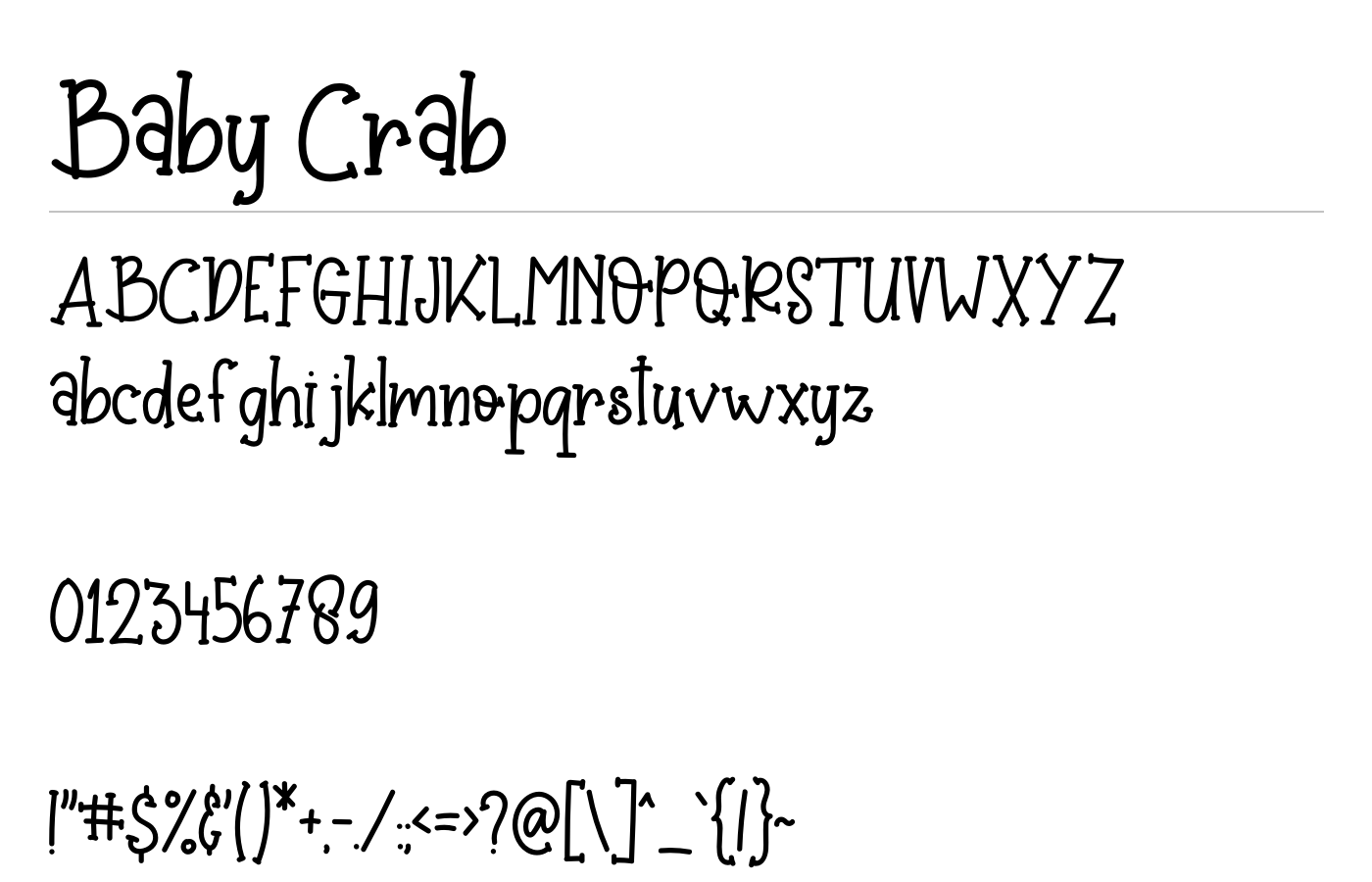
Baby Crab is a whimsical, playful handwritten font with a casual and friendly vibe. Its irregular, thin strokes and quirky letterforms give it a charming, childlike character ideal for informal branding, children's books, and creative projects that want to evoke fun and approachability. This font works best in headlines, logos, and packaging where a lighthearted and unique style is desired.
Baby Crab Font
About Baby Crab Font
| Font family | Baby Crab Font |